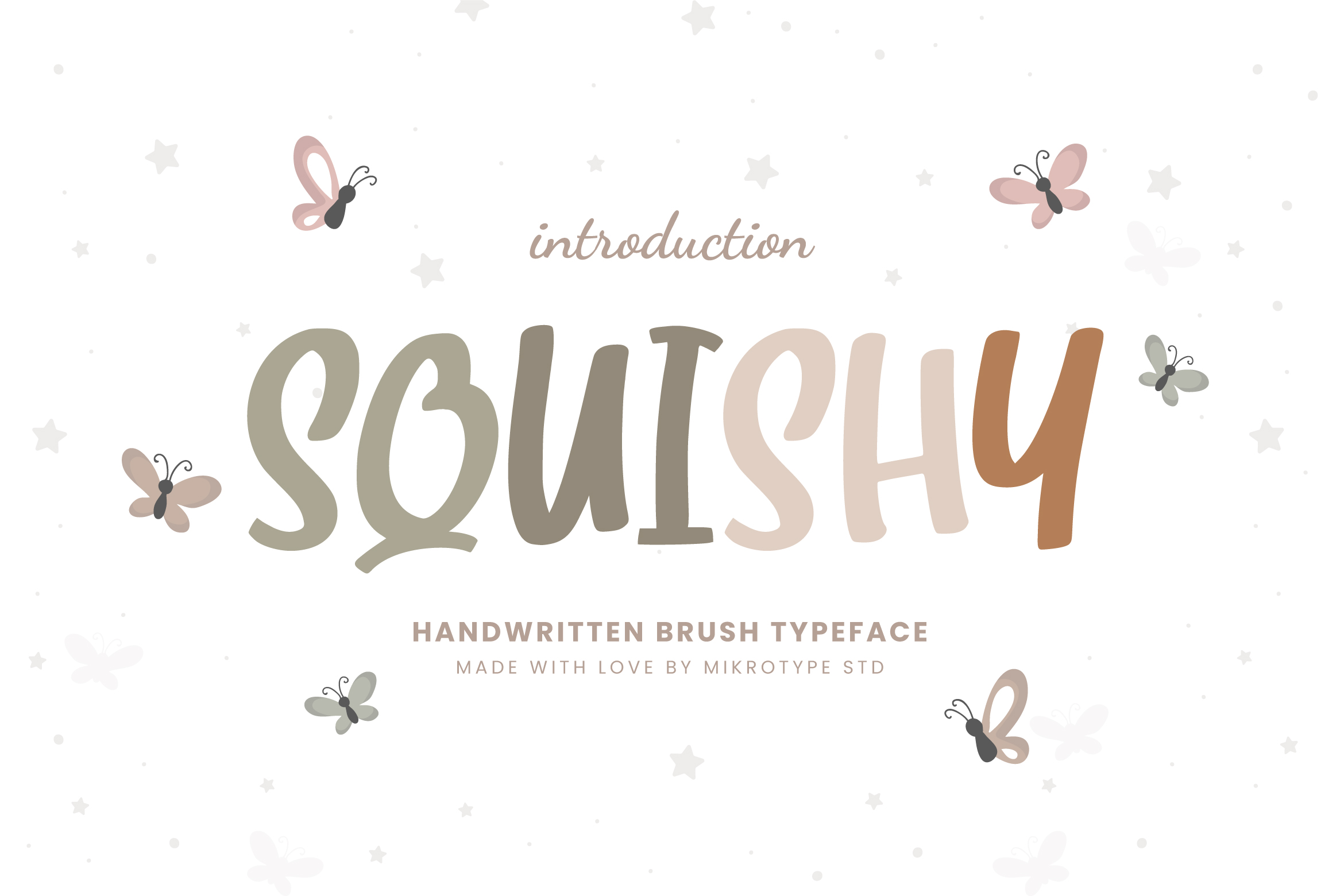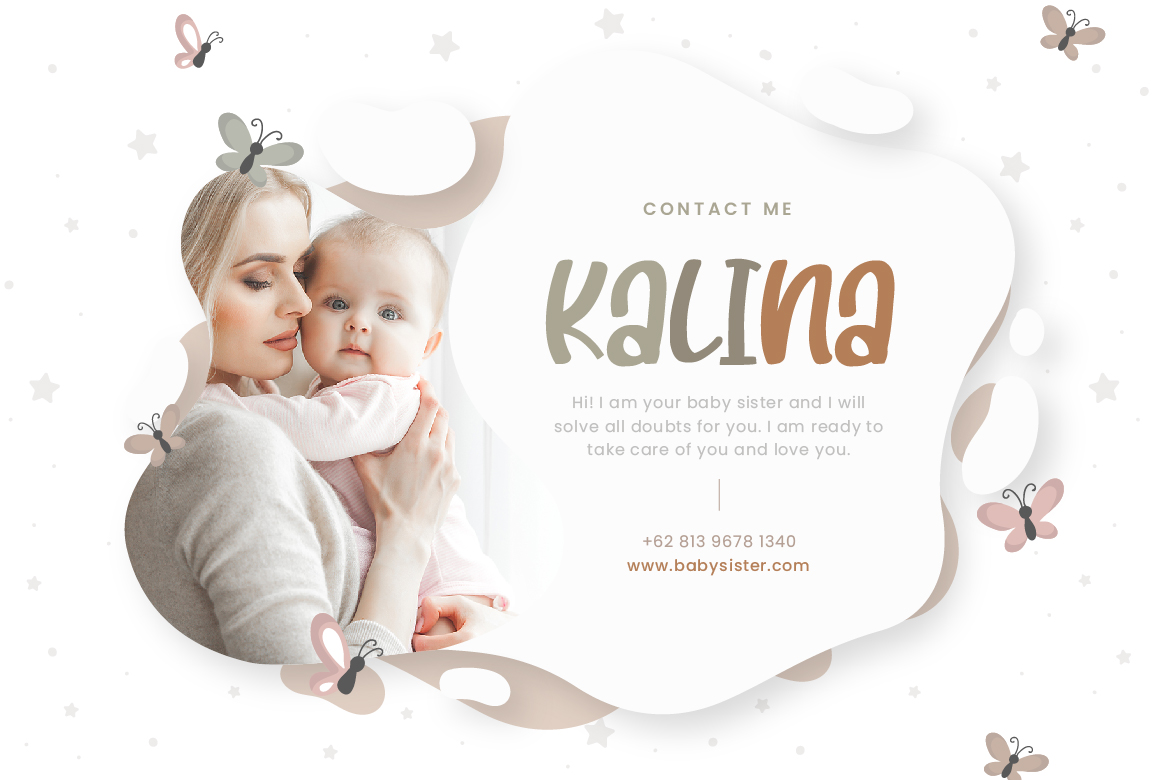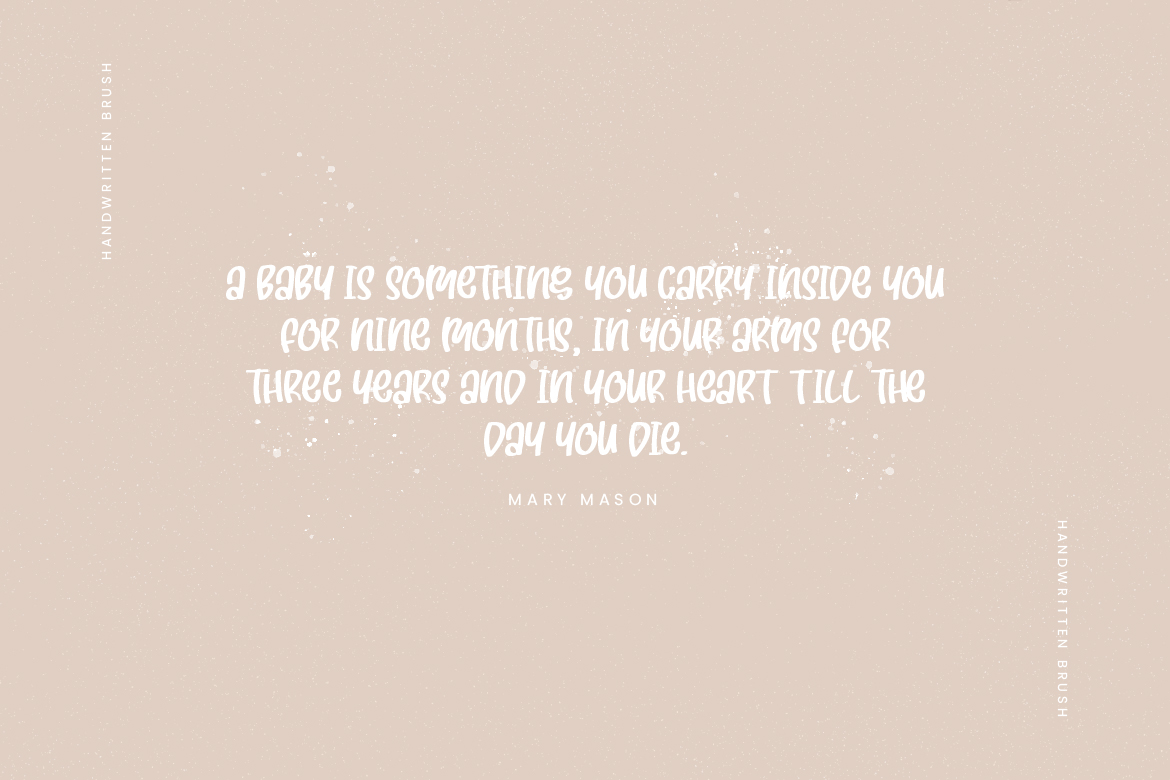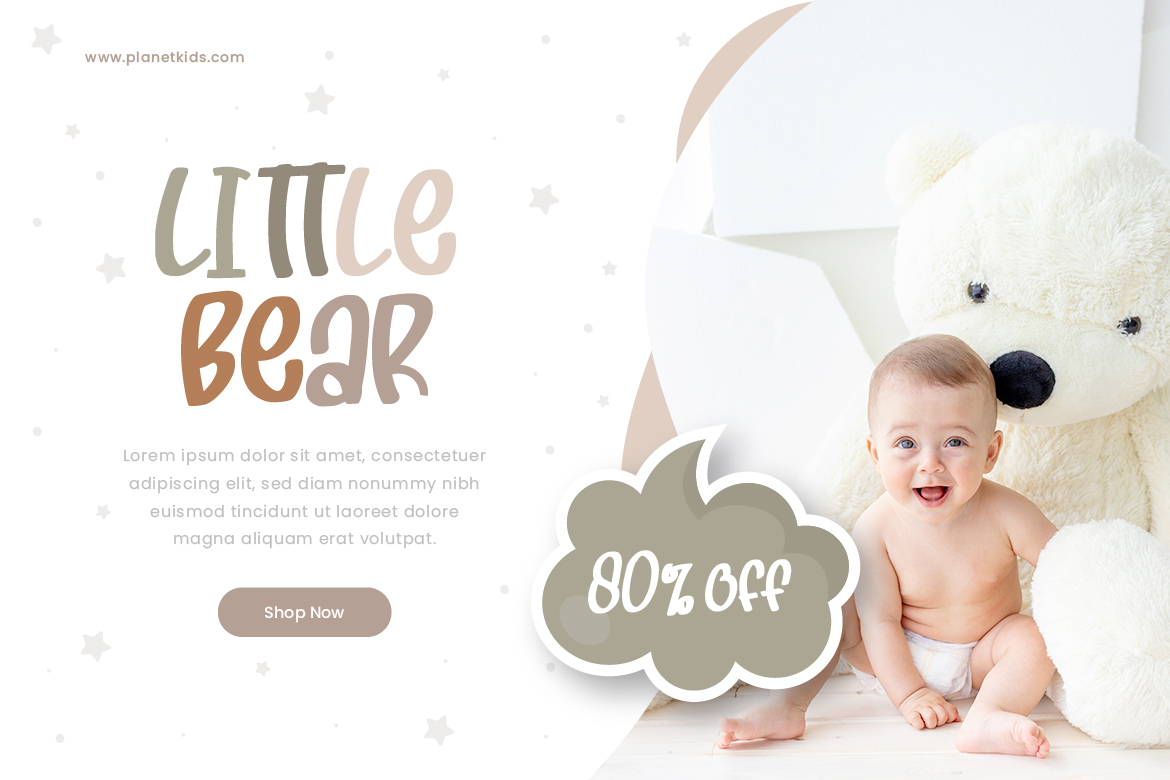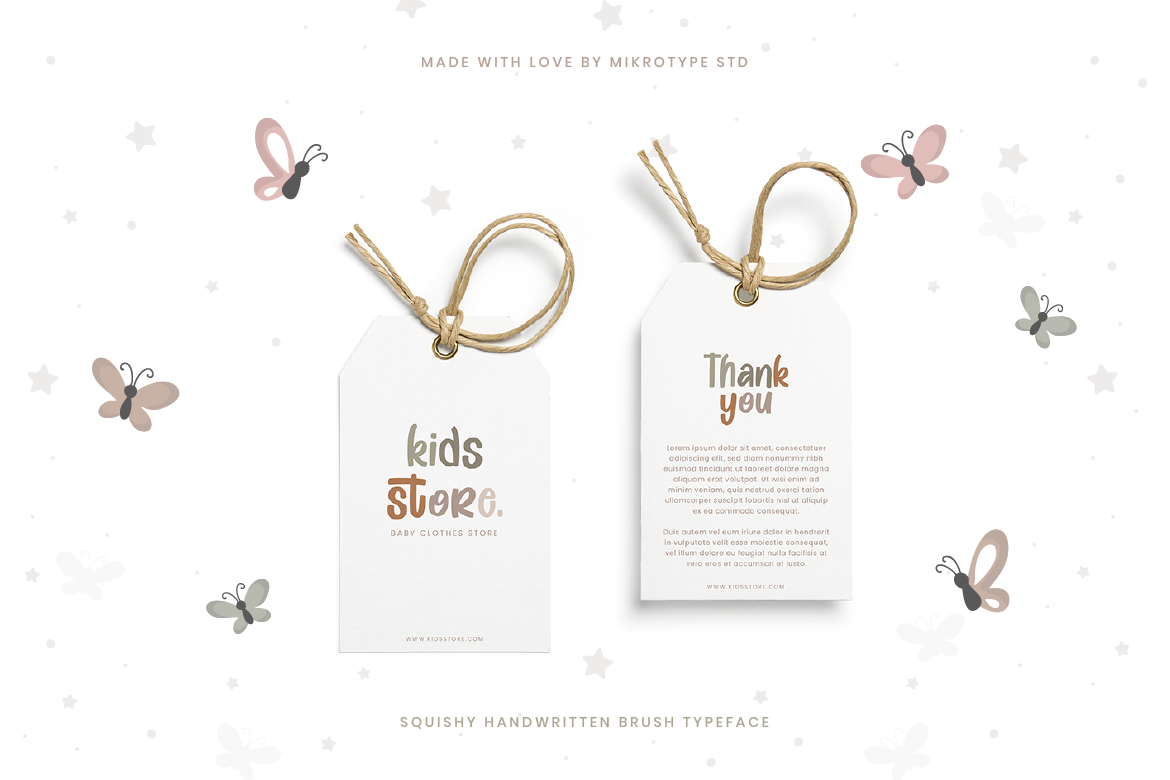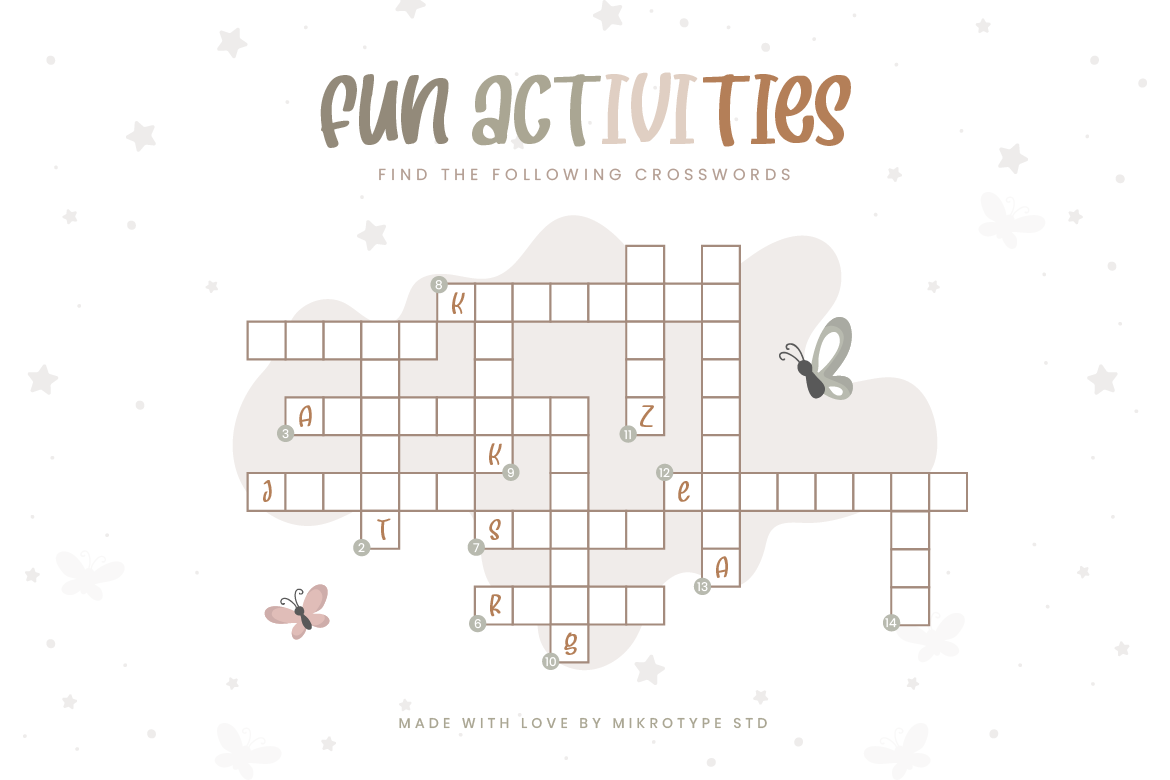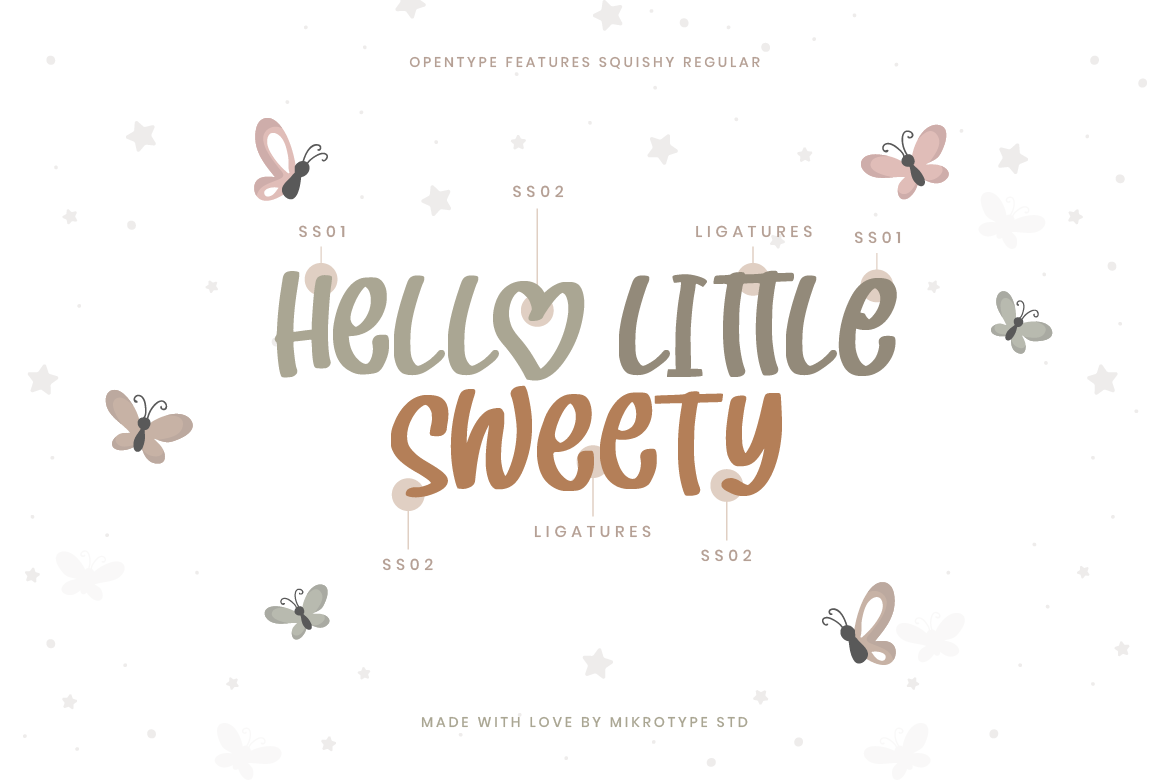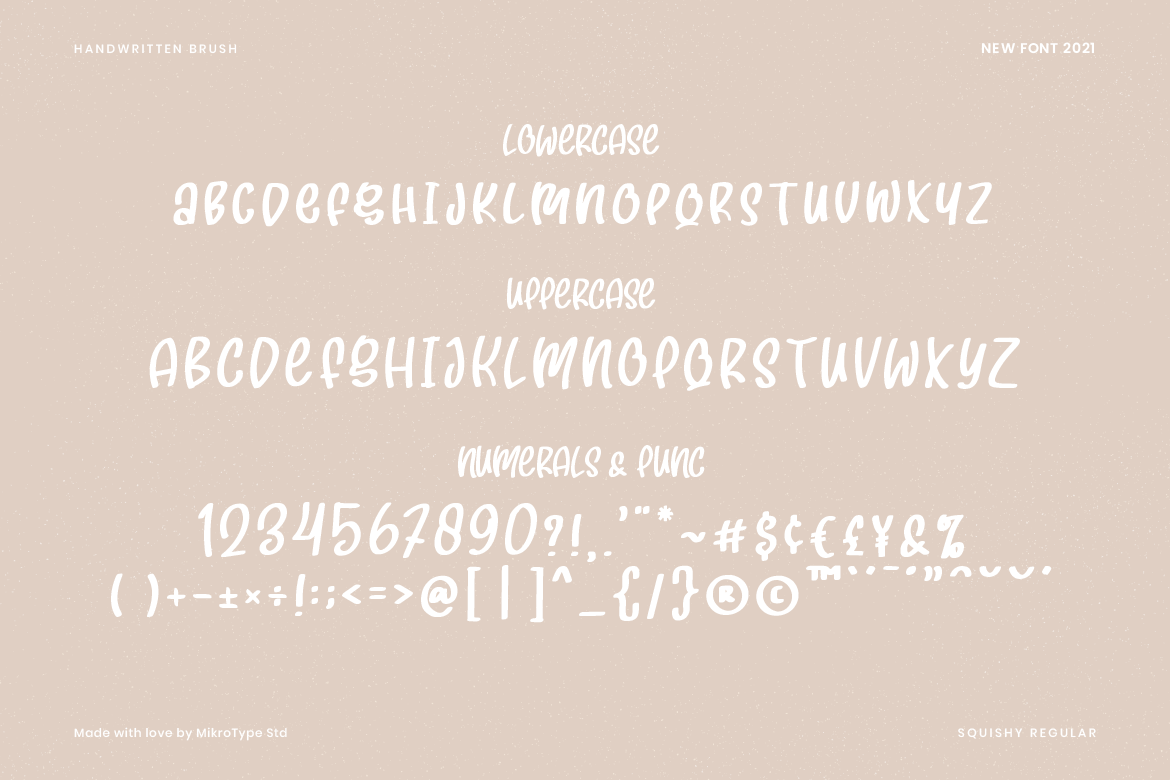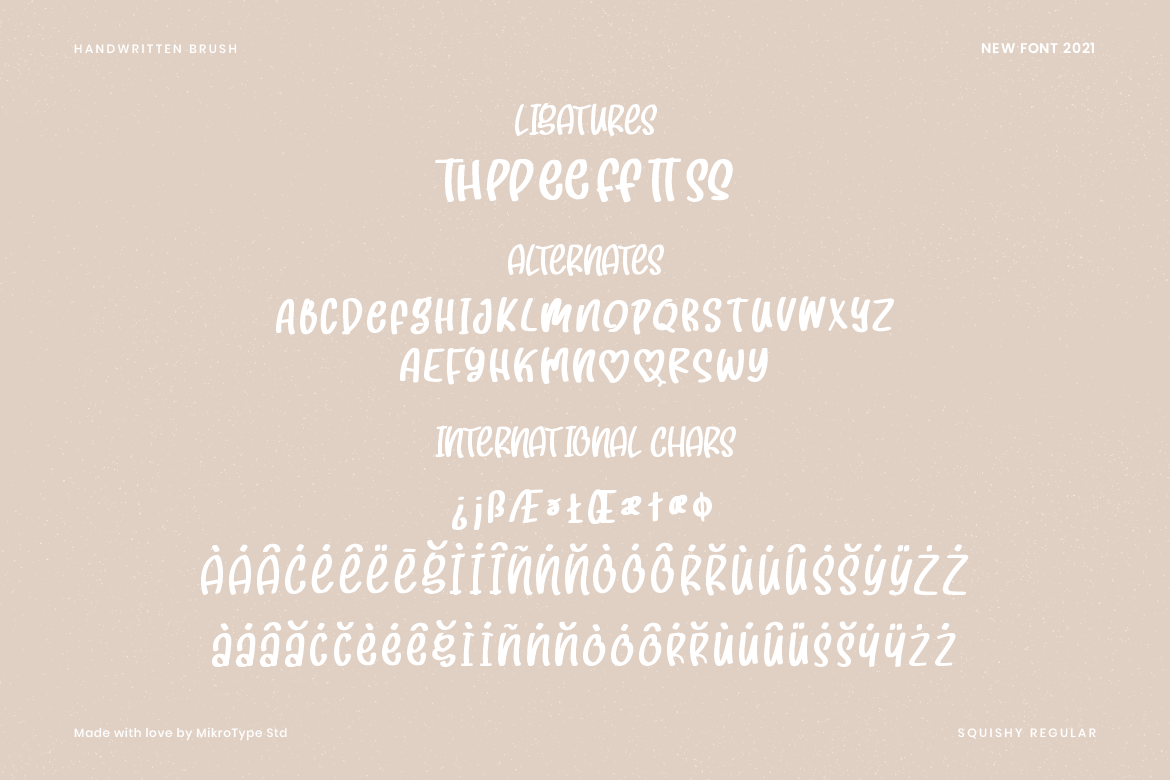
Squishy Brush Business Font
Introducing Squishy – A handwritten brush typeface made with a special brush that produces a sweet shape in this font. With an adorable shape, this font is perfect for your project that prioritizes a sense of beauty, sweetness and fun. The font is perfect for for movie title, logo, blogging, brand identity, book title, social media, branding, wedding invites, cards or simply use it in your next design project and suitable to use for many occasion.
- Fonts include multilingual support for; Afrikaans, Albanian, Czech, Danish, Dutch, English, Estonian, Finnish, French, German, Hungarian, Italian, Latvian, Lithuanian, Norwegian, Polish, Portuguese, Slovak, Slovenian, Spanish, Swedish.